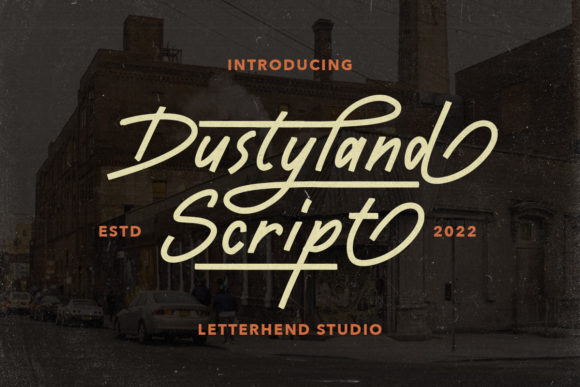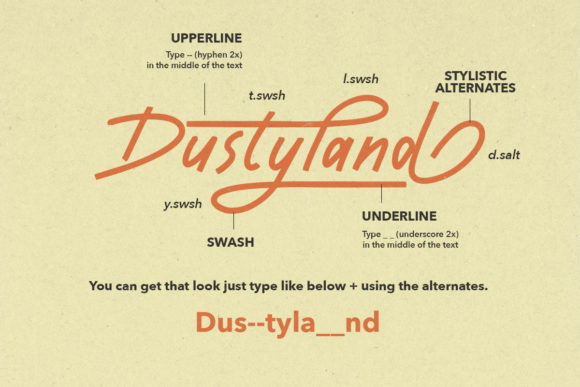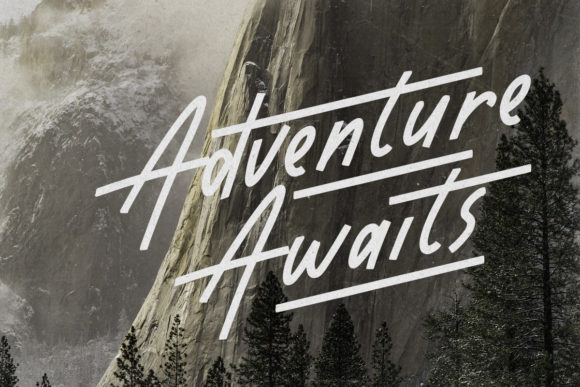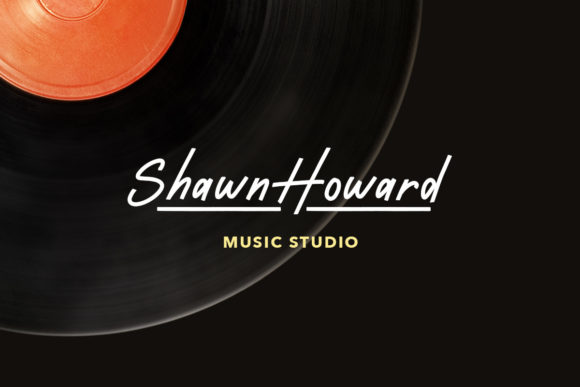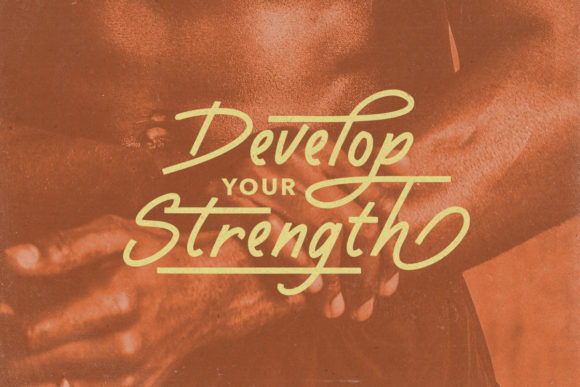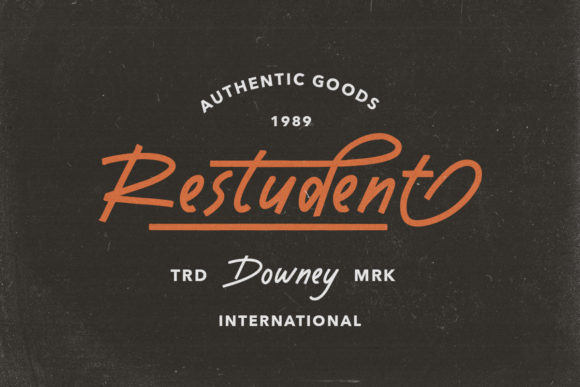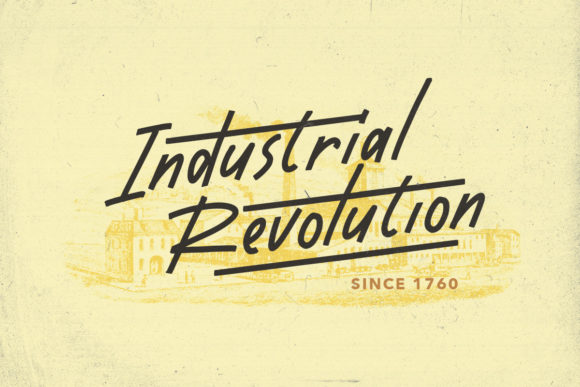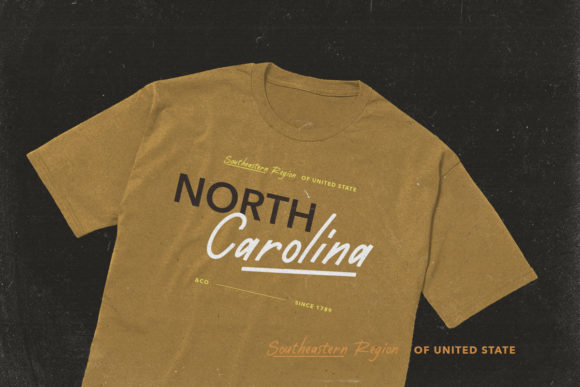
Dustyland Script Font
About Dustyland Script Font
Dustyland Script is a monoline script with a touch of vintage look and feel. This type of font is perfectly made to be applied especially in logo, headline, signage, and the other various formal forms such as invitations, labels, logos, magazines, books, greeting/wedding cards, packaging, fashion, makeup, stationery, novels, labels or any type of advertising purpose.